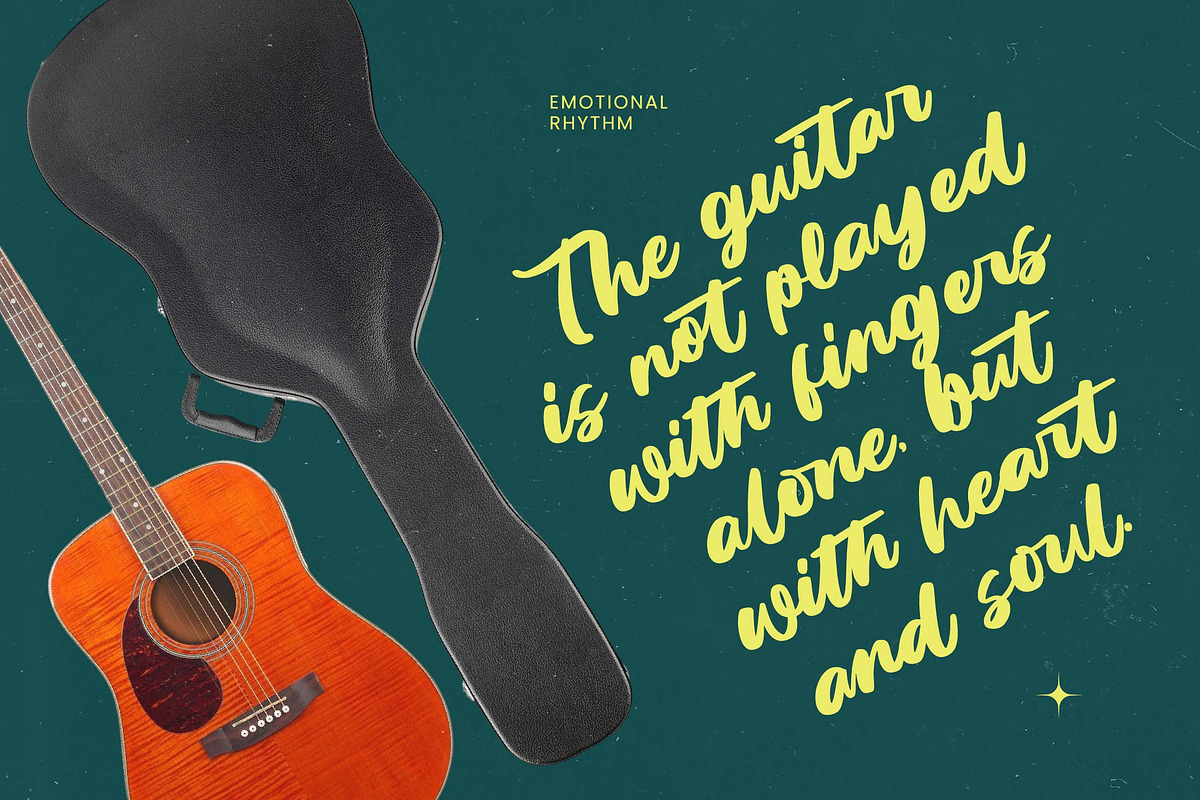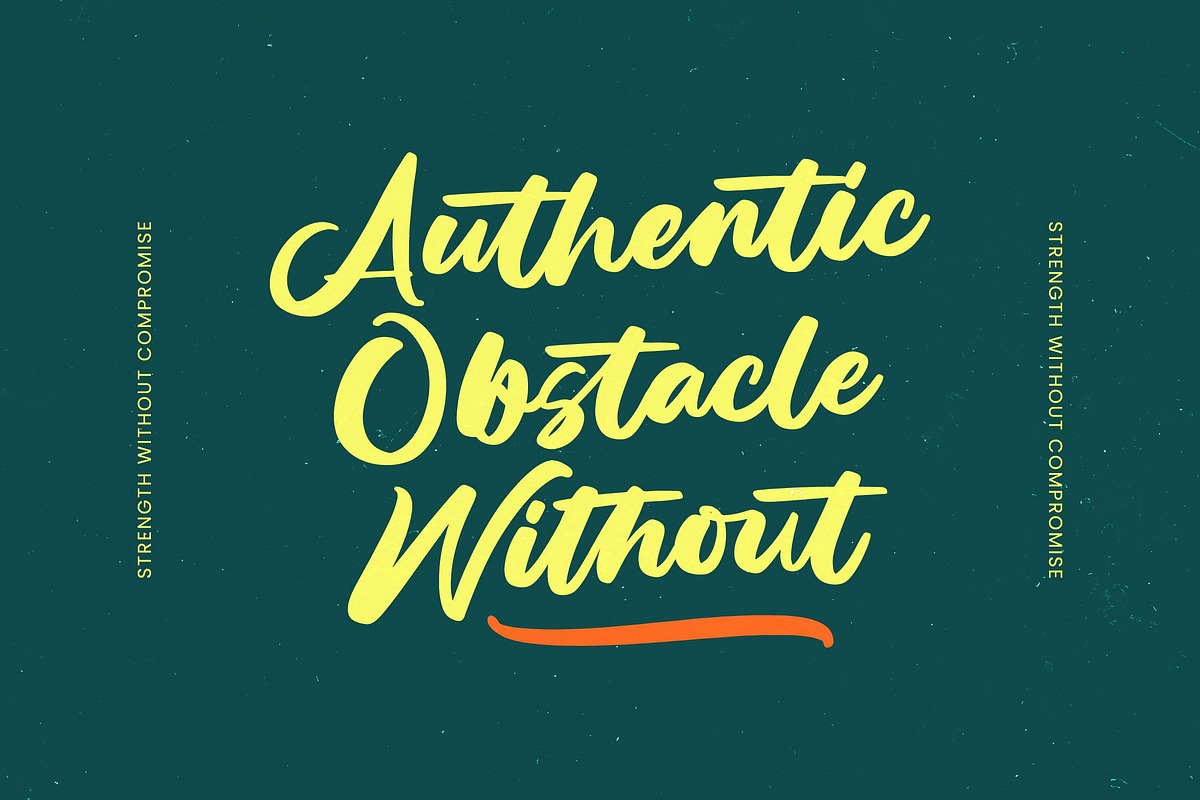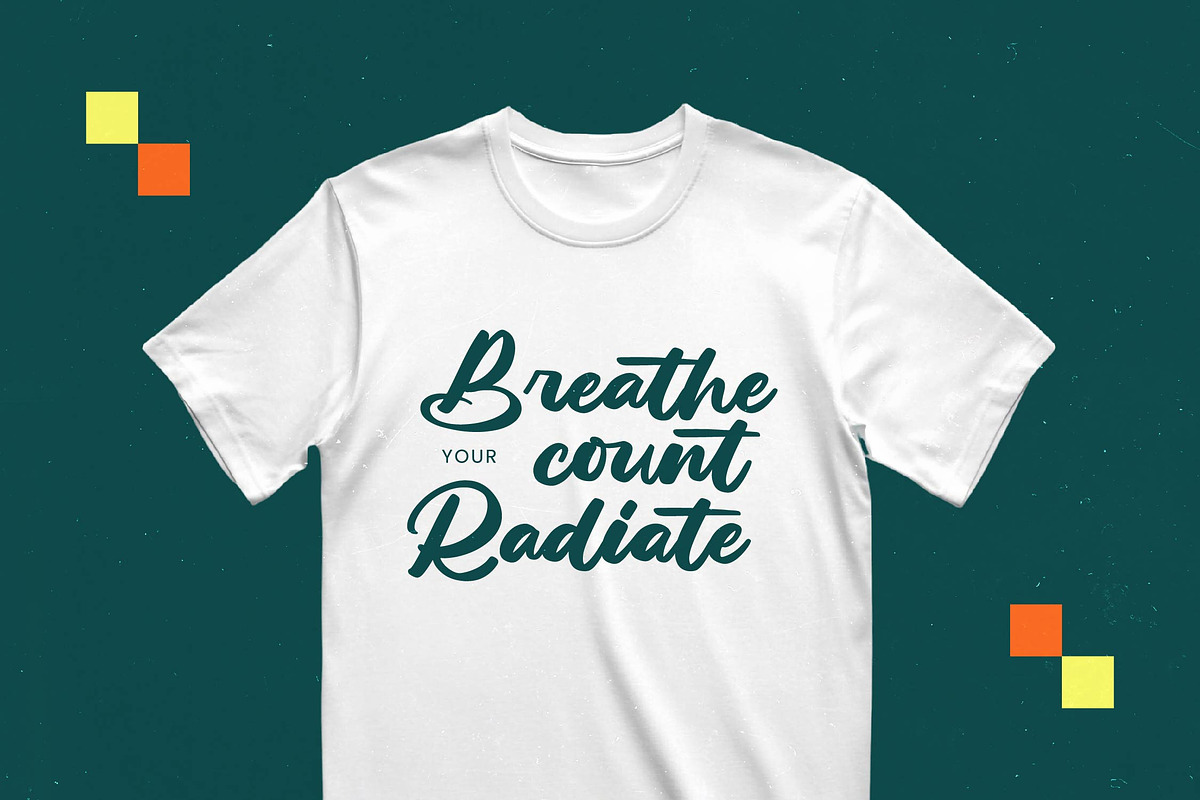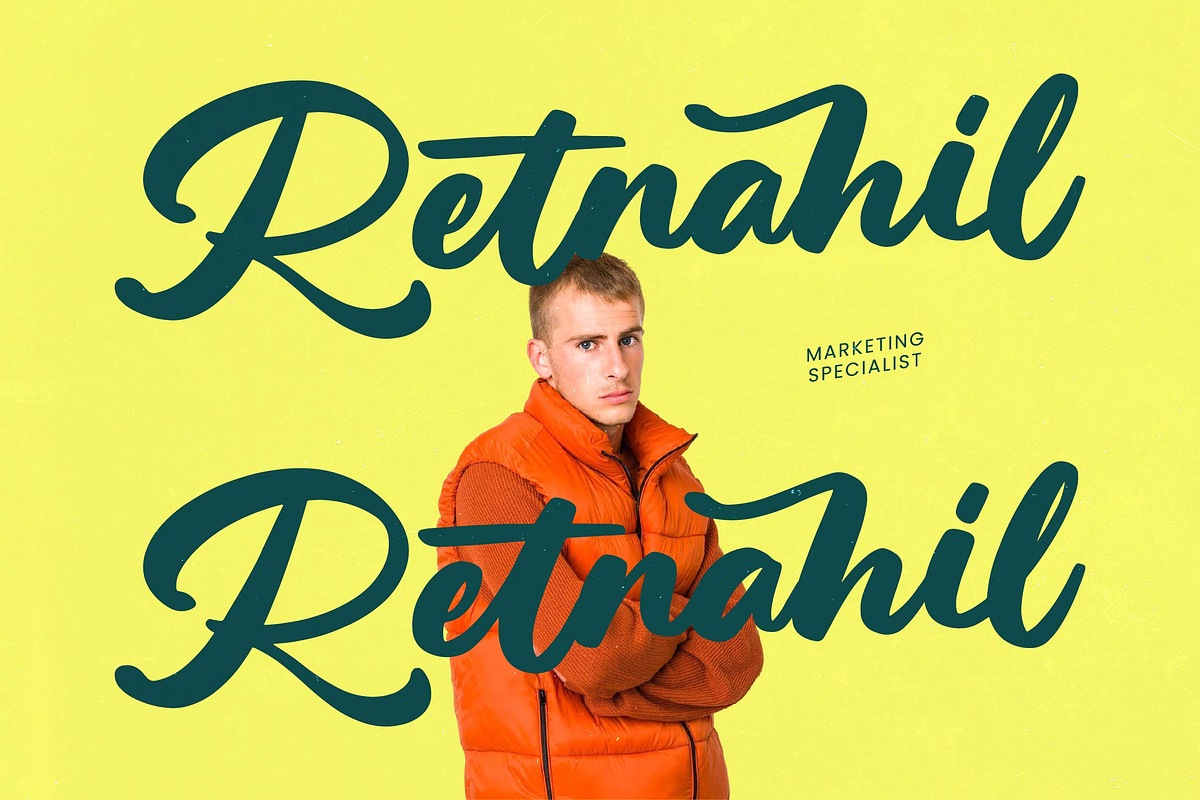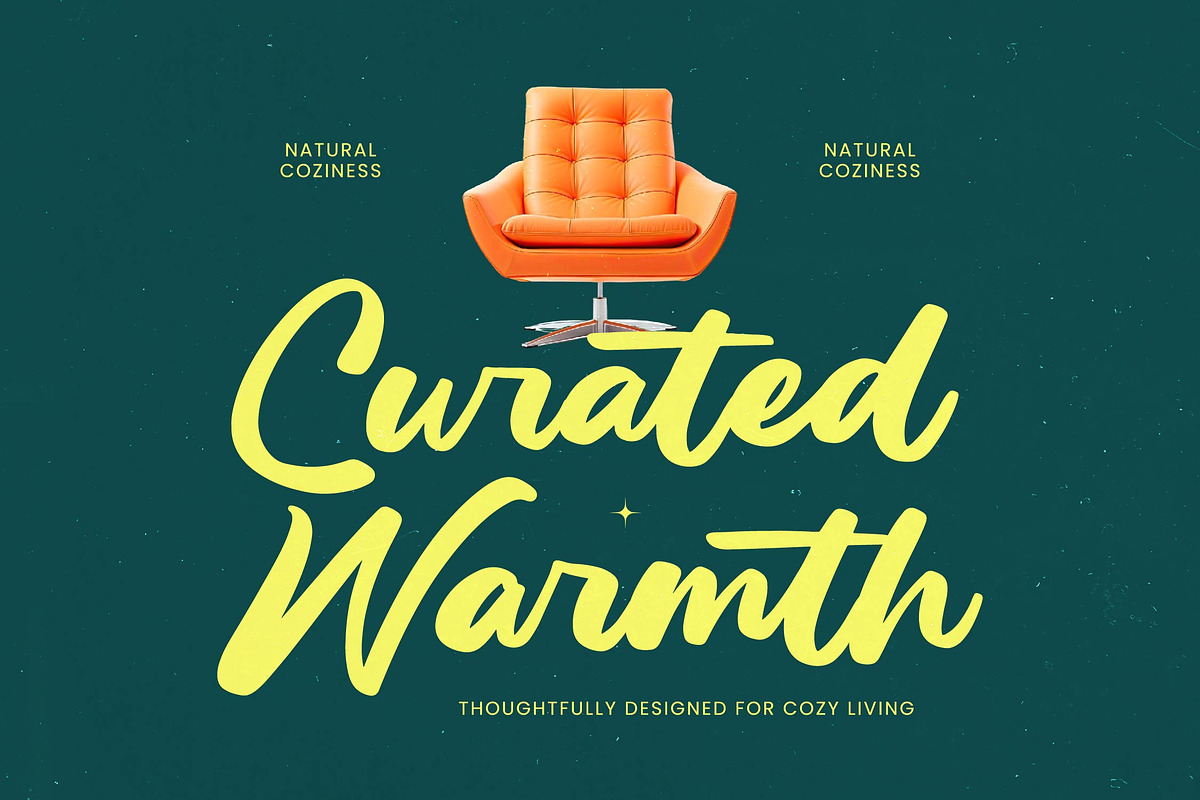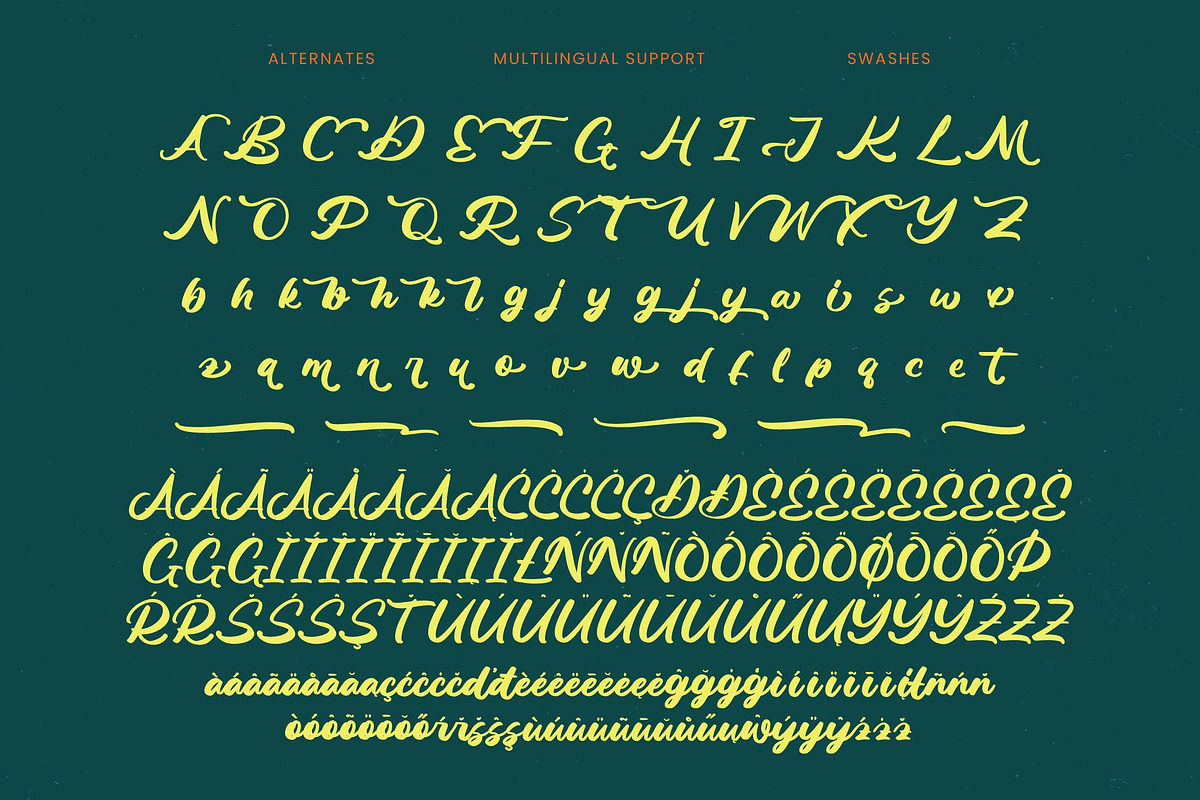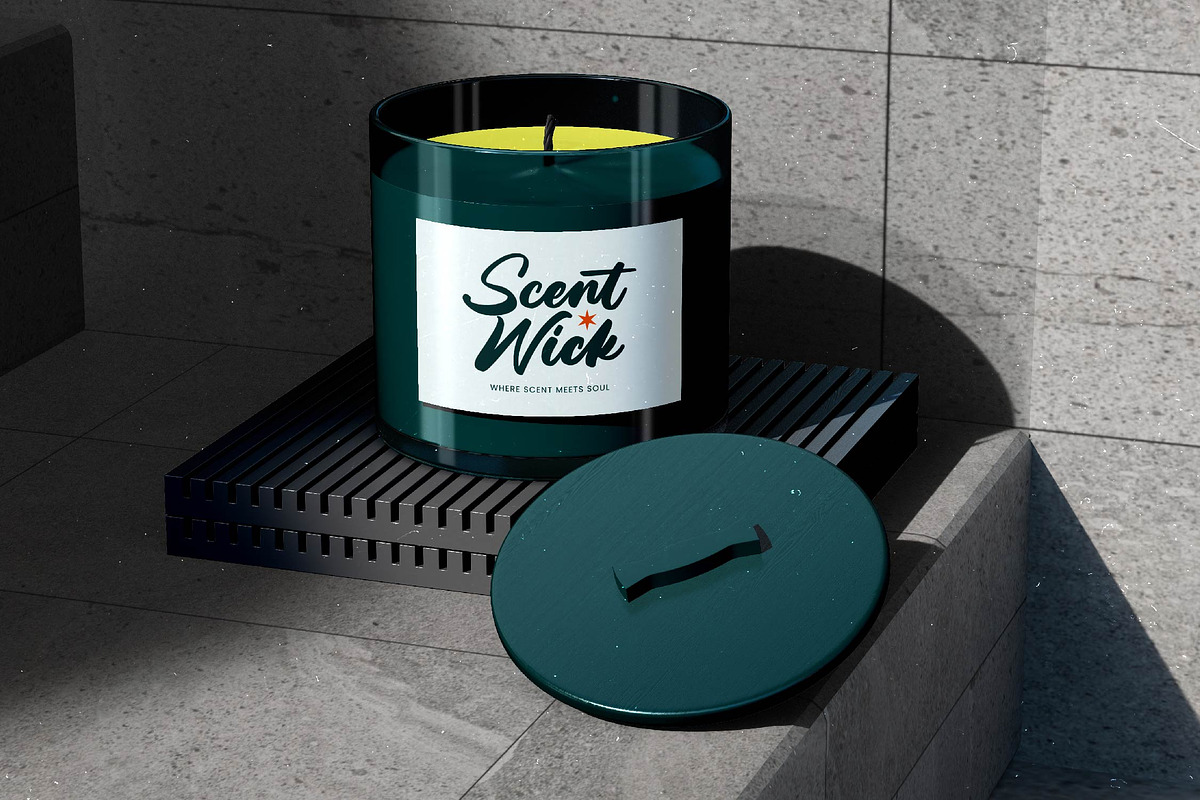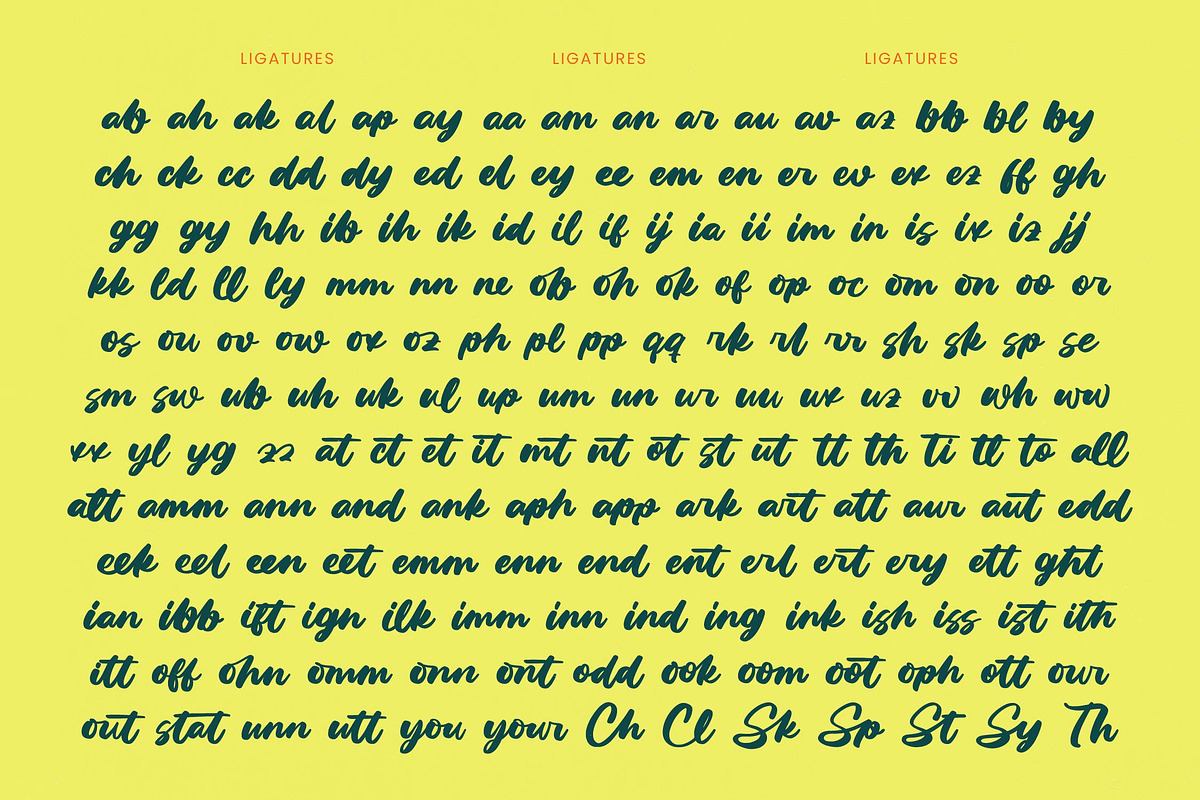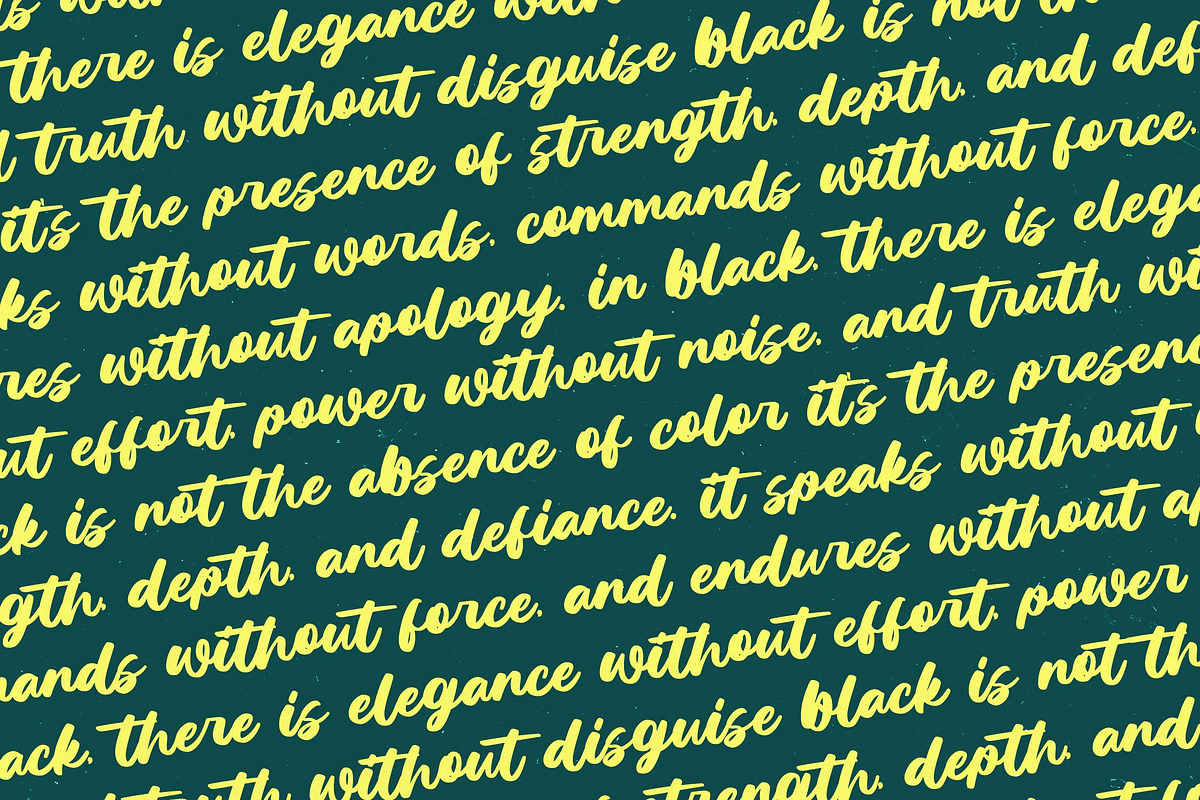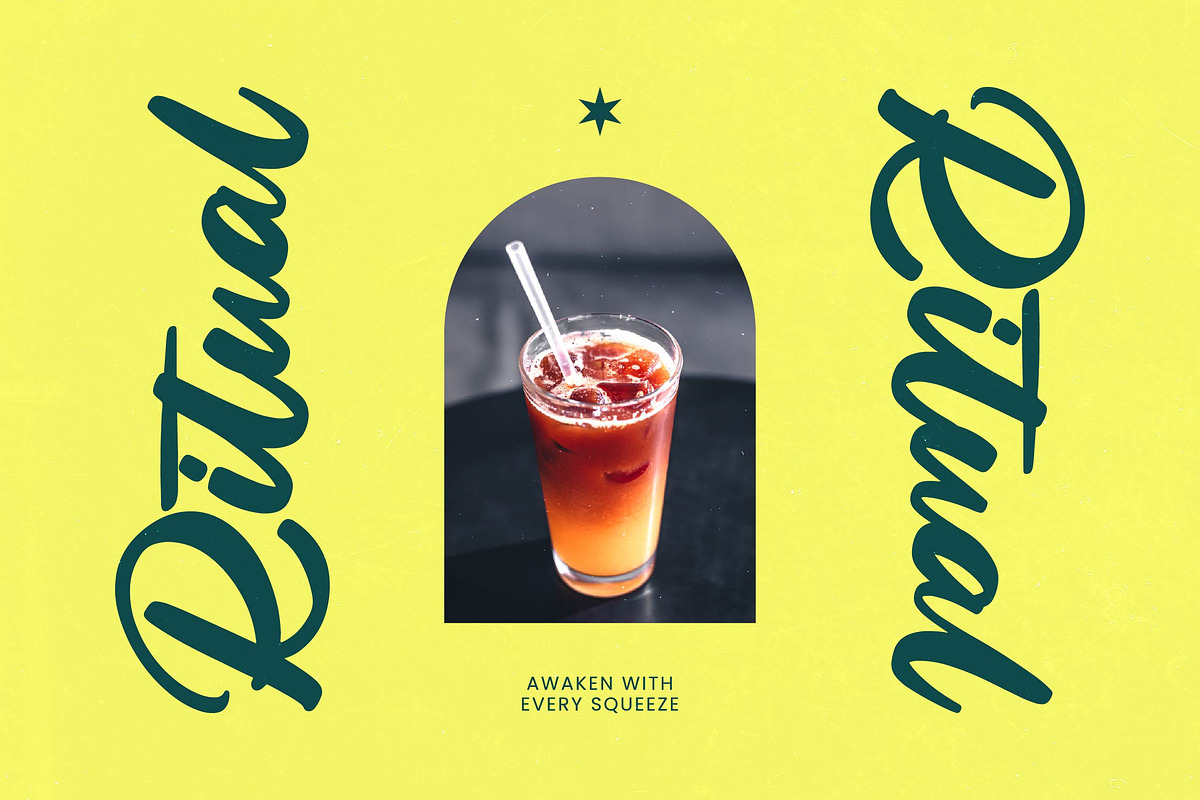
Factun Blacki Bold Calligraphy Font
Factun Blacki - Bold Calligraphy Font , from Letterena, is a Luxury Script font, suitable for any projects such as: logos, branding projects, homeware designs, product packaging, mugs, quotes, posters, shopping bags, t-shirts, book covers, name card, invitation cards, greeting cards, label, photography, watermark, special events, and all your other luxury and beautiful projects that need a Luxury Script taste.
- 187 Ligature 61 Alternate & 06 Swashes